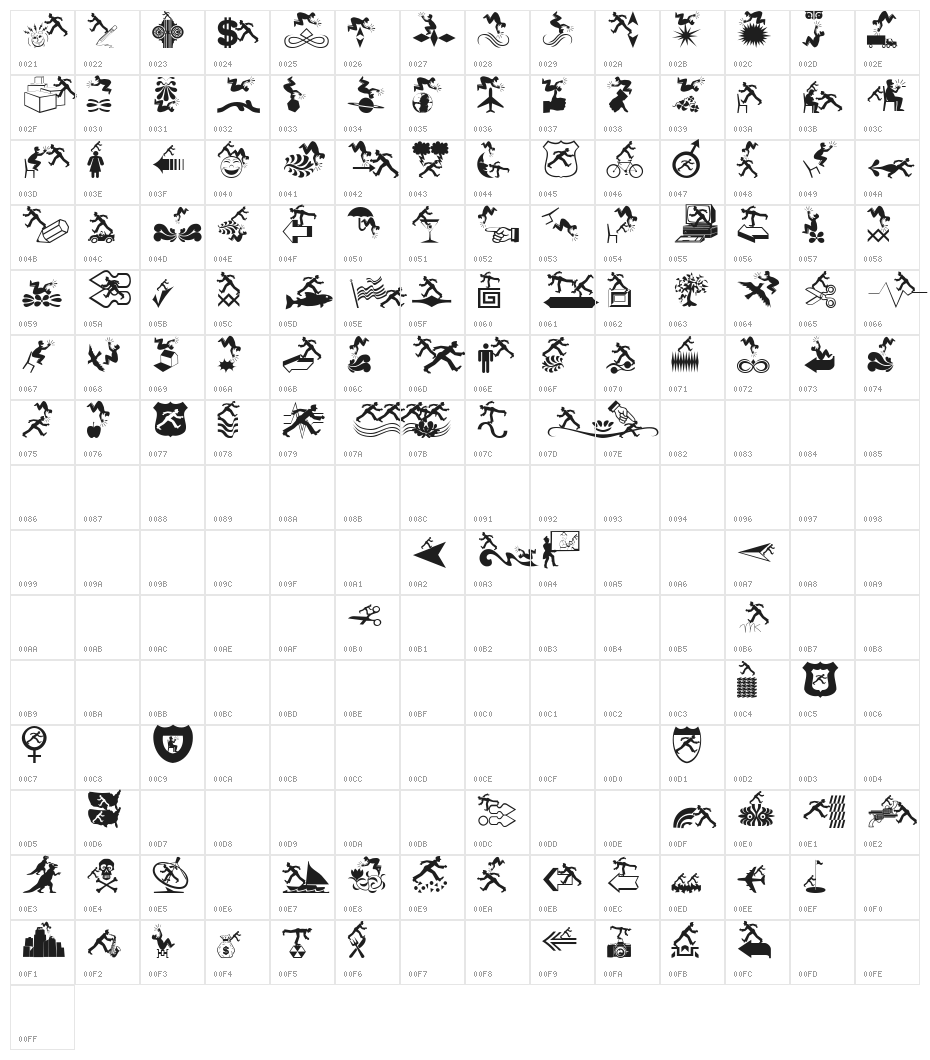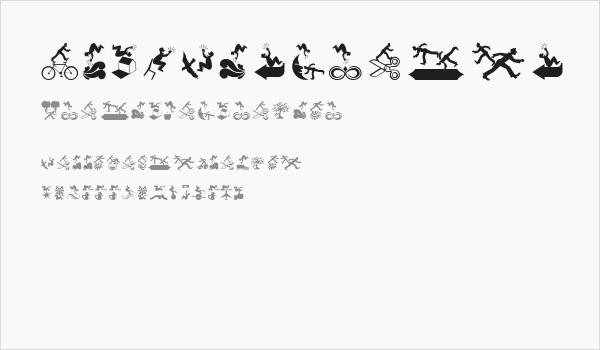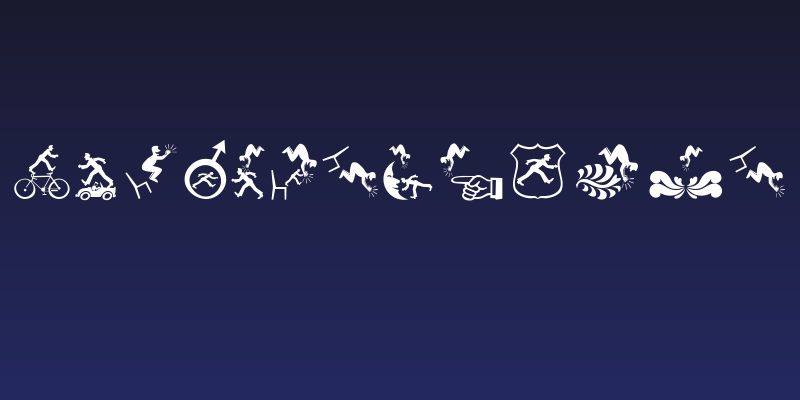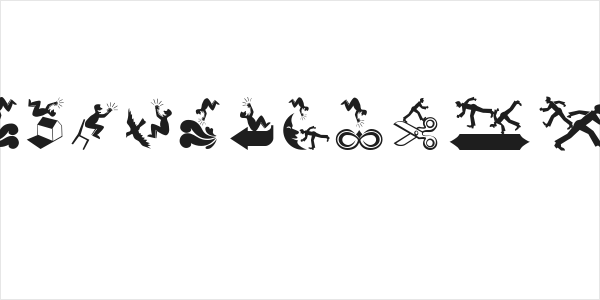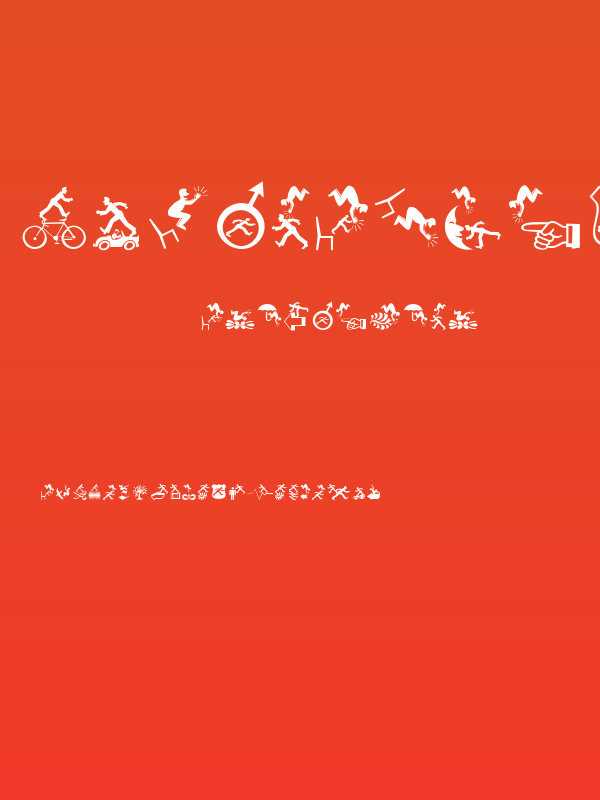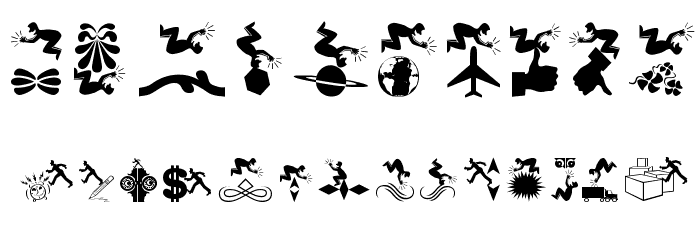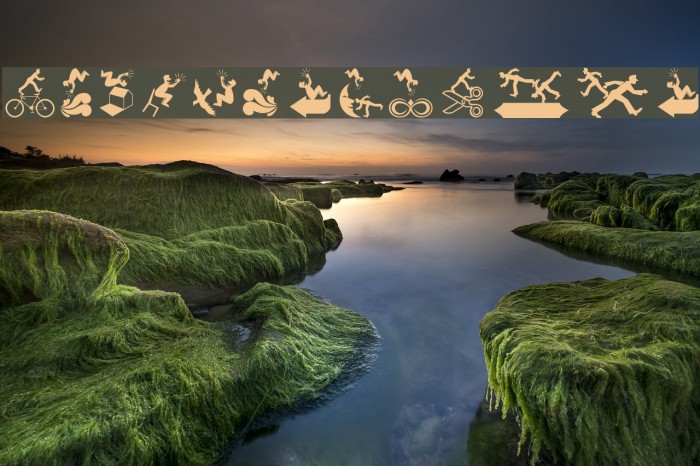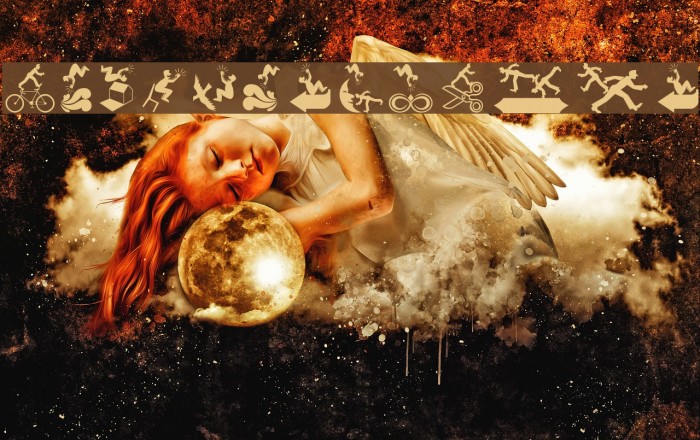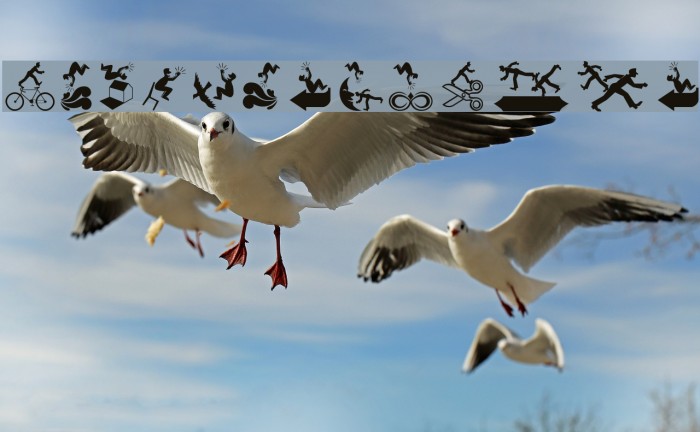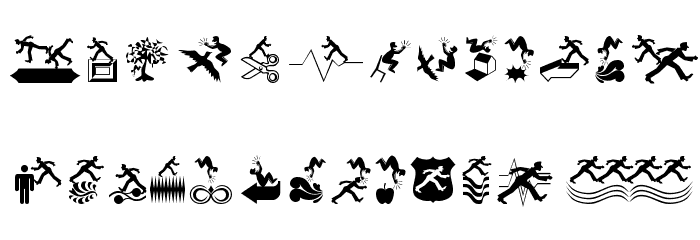
FlightsDreams Font
FlightsDreams Description
A playful, illustrative dingbat font featuring dynamic human figures in various action poses, often interacting with objects or symbols such as arrows, sports equipment, and abstract shapes. The glyphs are bold, highly stylized, and designed for decorative or thematic use rather than standard text.
| Overall Style | Decorative, Playful, Modern |
| Use Case | Logos, Posters, Icons, Themed Graphics |
| Proposed Projects | Event posters, sports branding, playful infographics, themed invitations, educational materials. |